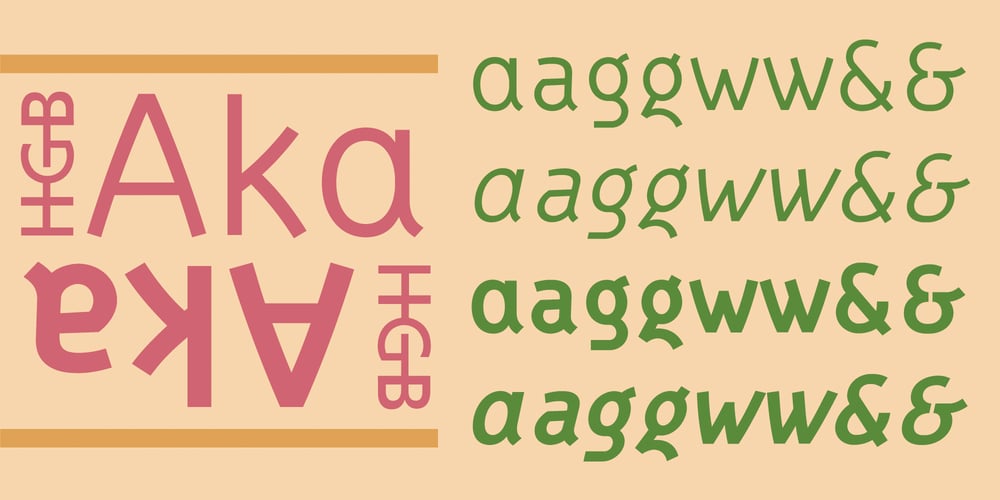
HGB Aka Font Family was designed by Hellmut G. Bomm and published by HGB fonts. HGB Aka contains 4 styles and family package options. In 2021 this font was created for a plaque commemorating Sophie Scholl’s 100th birthday. She was executed by the National Socialists in 1943 because she and the White Rose group had called for resistance. On the back of her death warrant she wrote the word “Freiheit” (freedom, liberty). The HGB Aka font is reminiscent of the modern spirit of the 1920s, when Sophie Scholl was born and the Weißenhofsiedlung of the German Werkbund was built in Stuttgart. Some of the buildings (by Le Corbusier) were added to the UNESCO World Heritage List in 2016. The art academy where I caught the type design virus is in the immediate vicinity. The second influence on the typeface is the humanistic san serifs from the period after 1975, when I started my independent work.